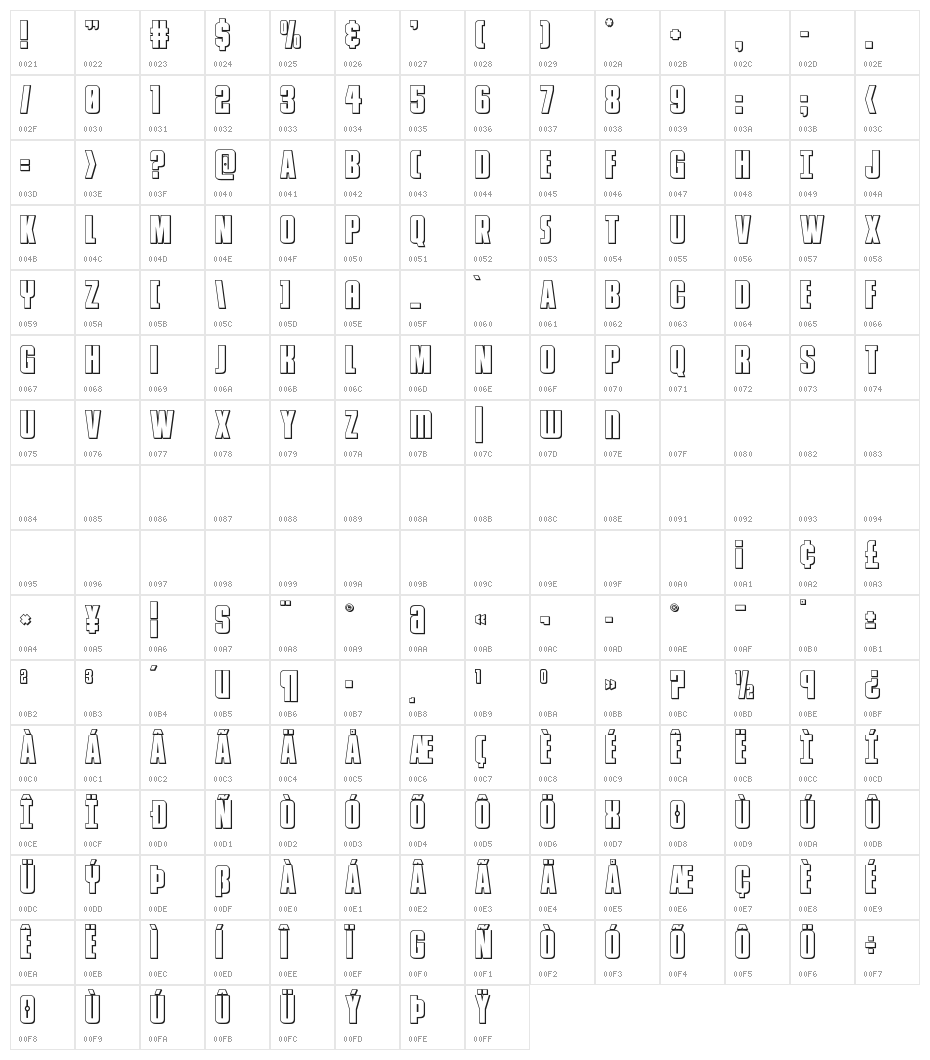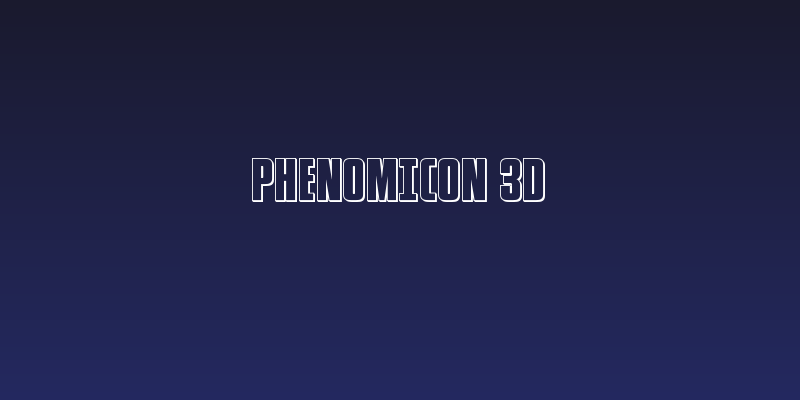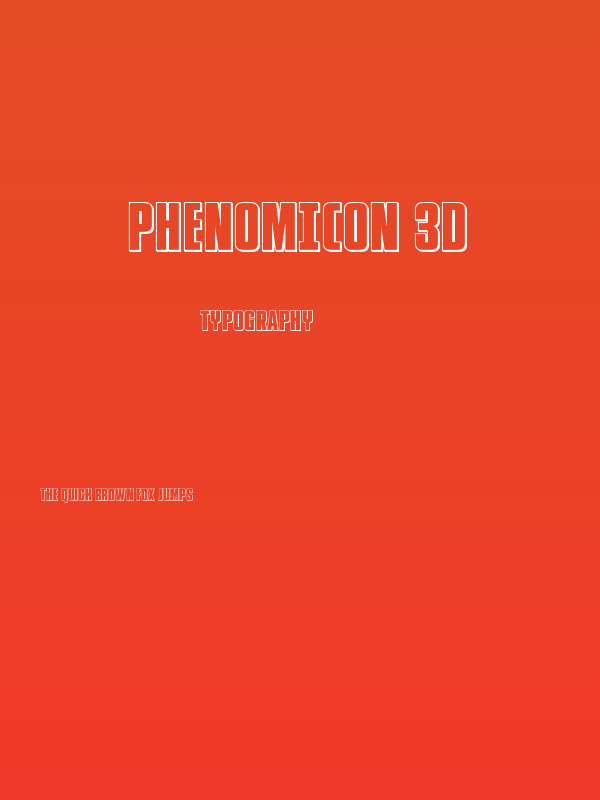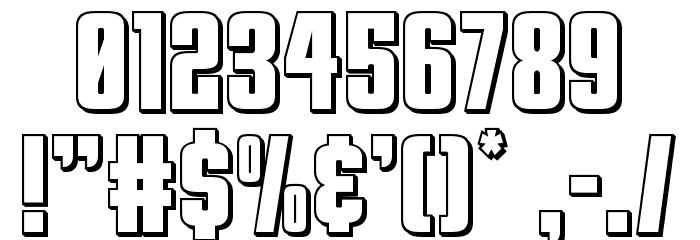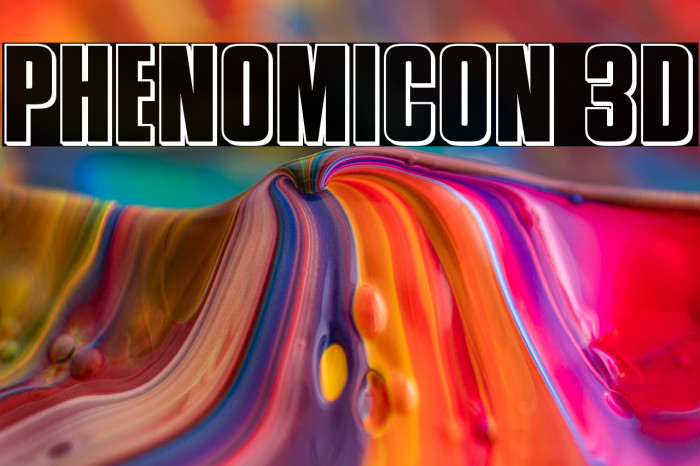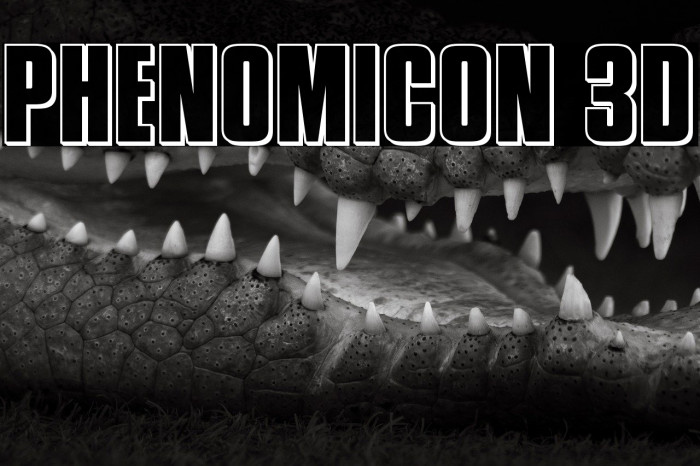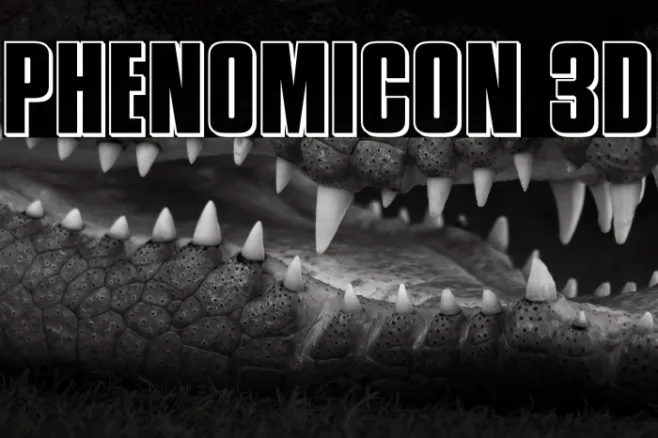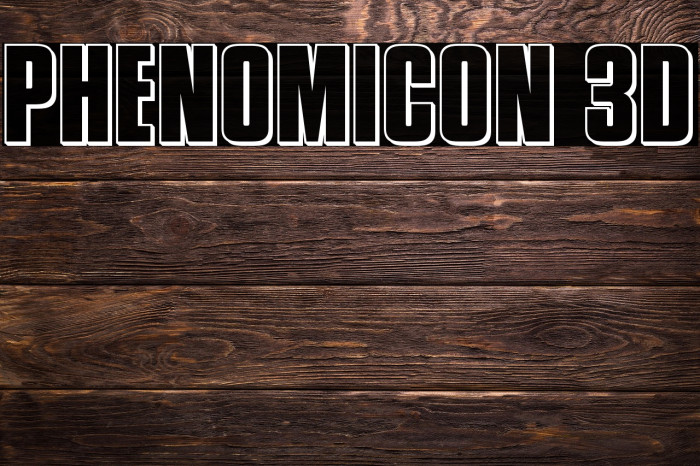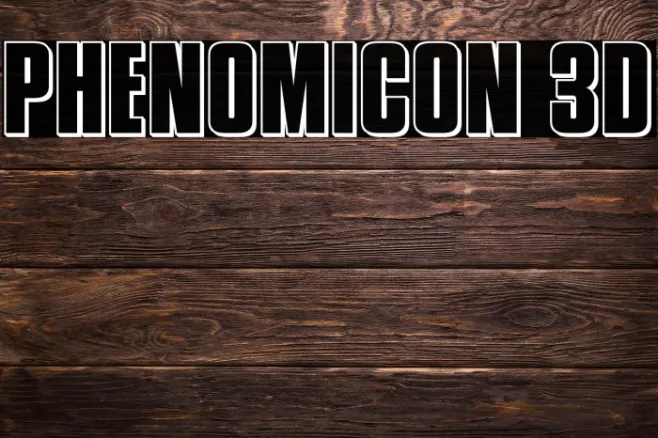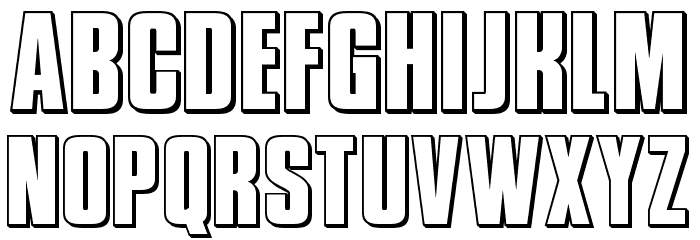
Phenomicon 3D Font
Phenomicon 3D Description
This font features a bold, three-dimensional appearance with a strong, impactful presence. The characters are outlined, giving them a distinct, shadowed effect that enhances their visibility and adds depth. The uppercase and lowercase letters maintain a consistent style, with clean lines and geometric shapes. The numerals and special characters follow the same design principles, ensuring uniformity across all elements. This font is ideal for projects that require a striking and modern look, such as posters, headlines, and branding materials.